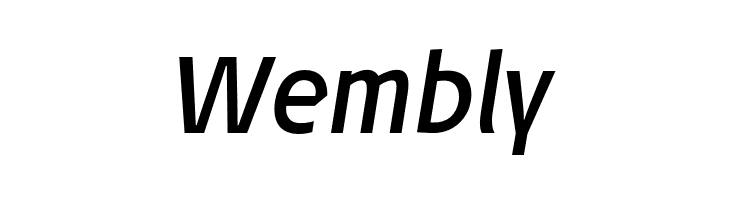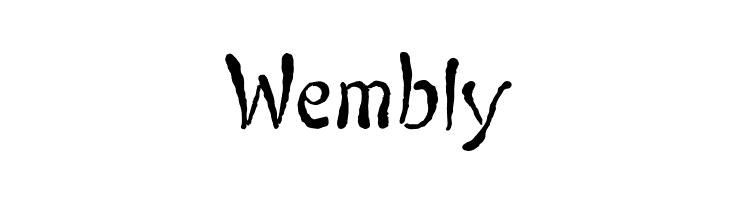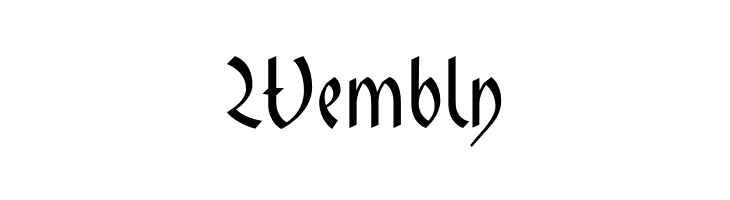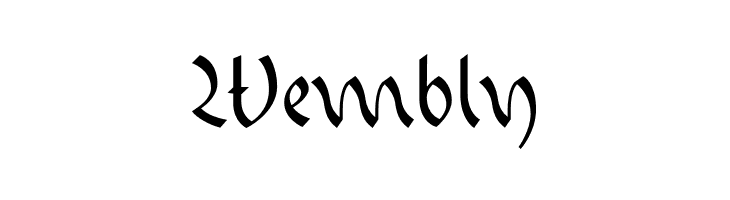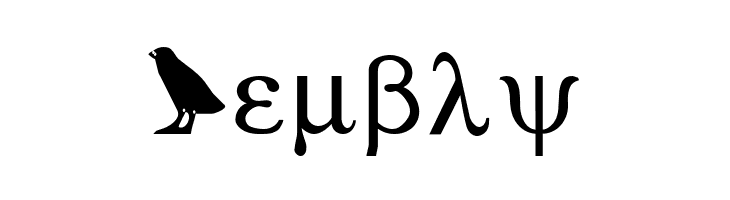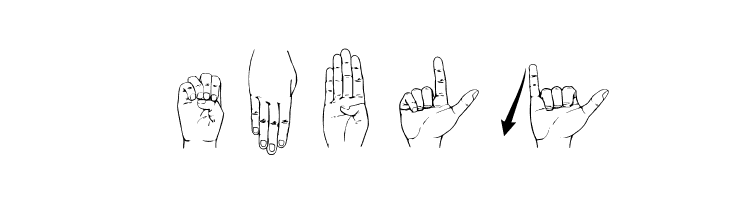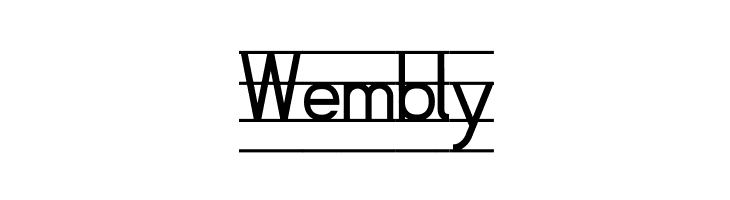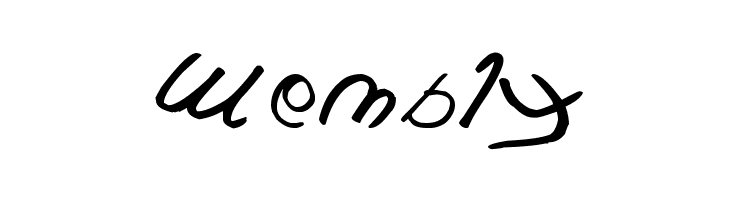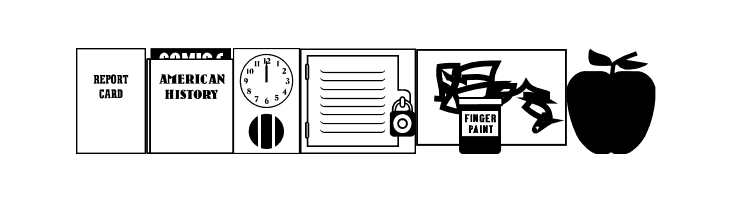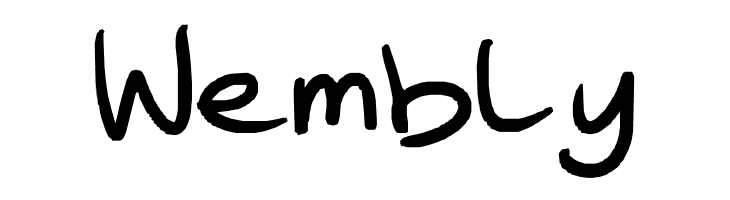
A bold, modern font with thick, uniform strokes and a strong geometric structure.
A bold, modern sans-serif font with clean lines and a slightly condensed width.
A modern sans-serif italic font with clean lines and a dynamic style.
An artistic, hand-drawn font with whimsical curves and decorative elements.
A traditional blackletter font with intricate, angular strokes and a medieval aesthetic.
A classic blackletter font with intricate, angular strokes and a medieval appearance.
A bold blackletter font with high contrast and intricate detailing.
Expressive handwritten font with dynamic strokes and a natural flow.
A dynamic, handwritten script with expressive, fluid strokes.
A blend of ancient Egyptian hieroglyphs and Greek script, offering a historical aesthetic.
Hand-drawn illustrations of sign language alphabet gestures.
A geometric and structured font with clean lines and uniform strokes.
A playful, handwritten script font with a lively and dynamic style.
A playful, school-themed decorative font with characters resembling educational items.
A decorative font featuring graphic arts and drafting tool symbols.
A playful, puzzle-themed decorative font with bold characters.
A whimsical, bold font with playful, hand-drawn characteristics.
). ) A clean, modern sans-serif font with excellent readability and geometric uniformity.
A collection of dice and directional symbols for illustrative use.
A dynamic, expressive handwritten font with fluid strokes and artistic flair.
A dynamic and expressive handwritten font with fluid, organic strokes.
A bold, distressed font with a grunge texture and strong, impactful characters.
A modern, rounded font with a clean and approachable design.
A modern, geometric font with rounded edges and a clean design.
A modern, geometric font with rounded edges and high legibility.
A bold, geometric font with rounded characters and a modern design.
A bold, modern font with thick, uniform strokes and a strong presence.
A creative font designed to resemble pencil drawings, ideal for educational themes.
An artistic and abstract representation of Braille with decorative elements.